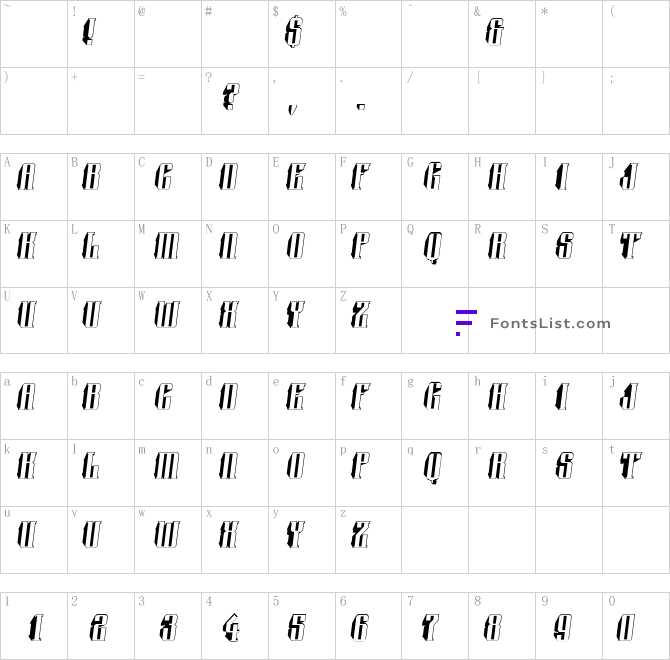
- Font Name:a_Harder3dObl
a_Harder3DrealOblique.ttf is a very beautiful artistic font, a_Harder3DrealOblique.ttf is widely used in the design and printing of various books and pictures,a_Harder3DrealOblique.ttf has a strong visual impact,a_Harder3DrealOblique.ttf is a commonly used font in newspapers, magazines and books, and is used in posters, e-commerce Poster design, store design, logo design, font design and other fields.a_Harder3DrealOblique.